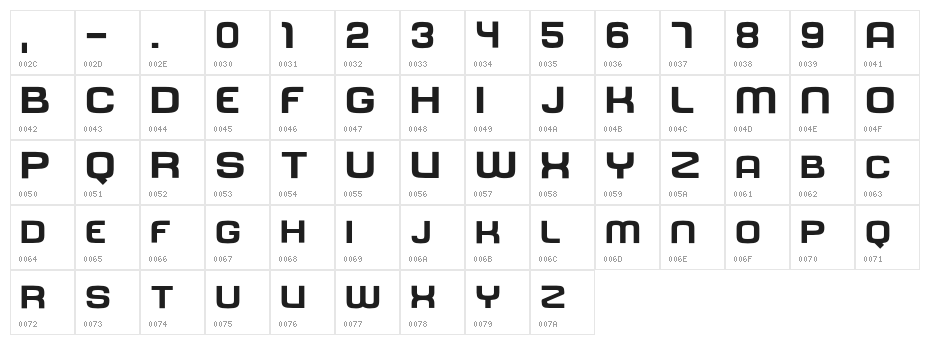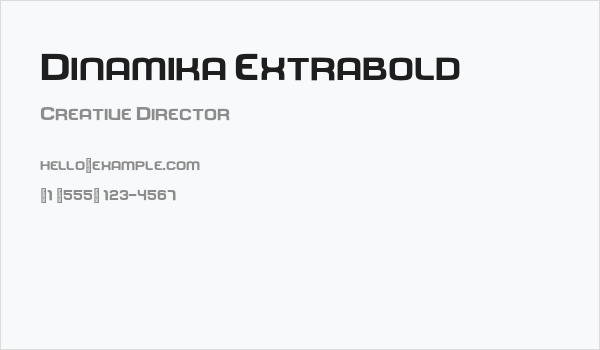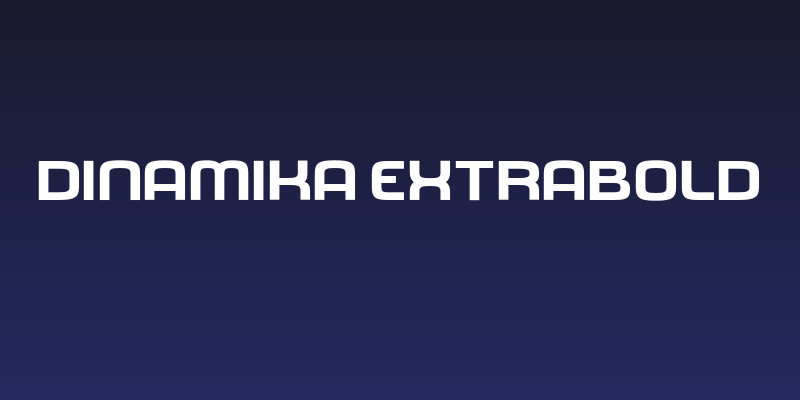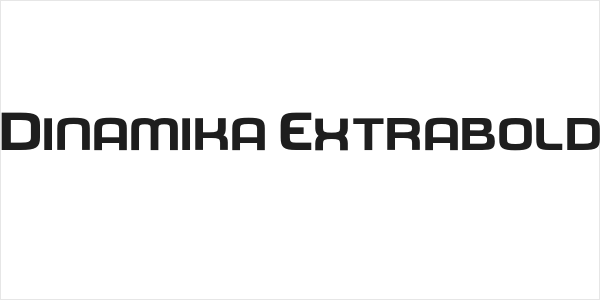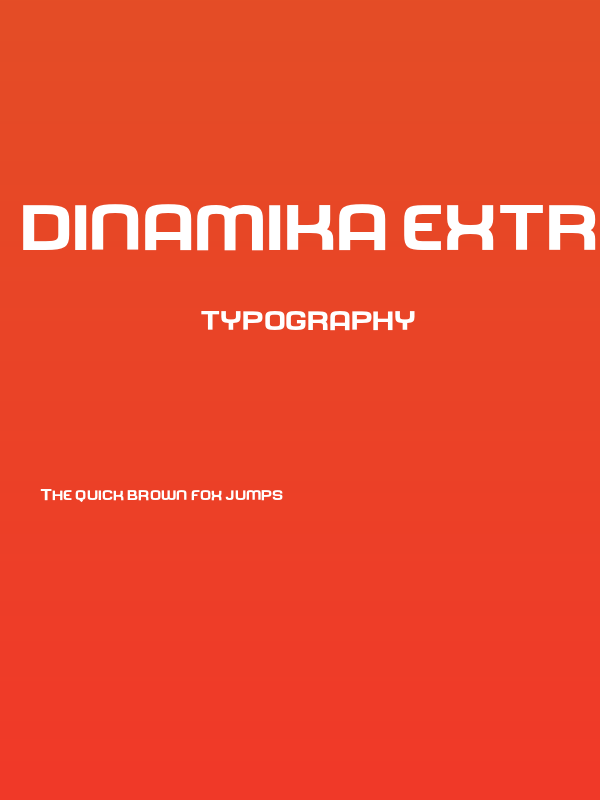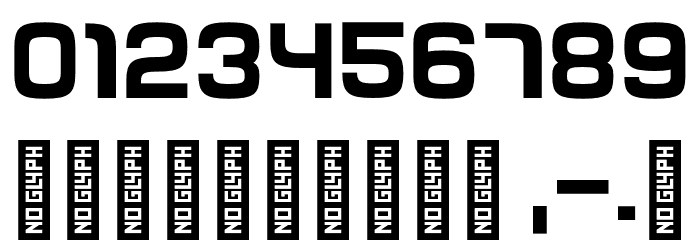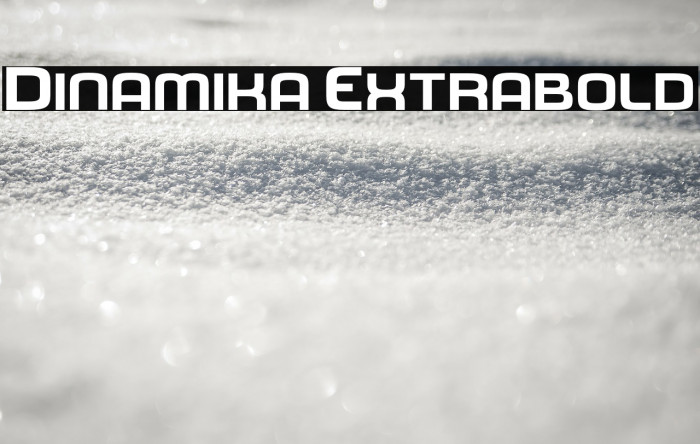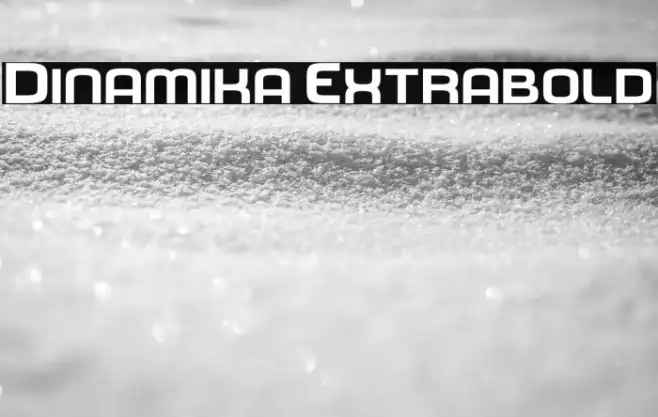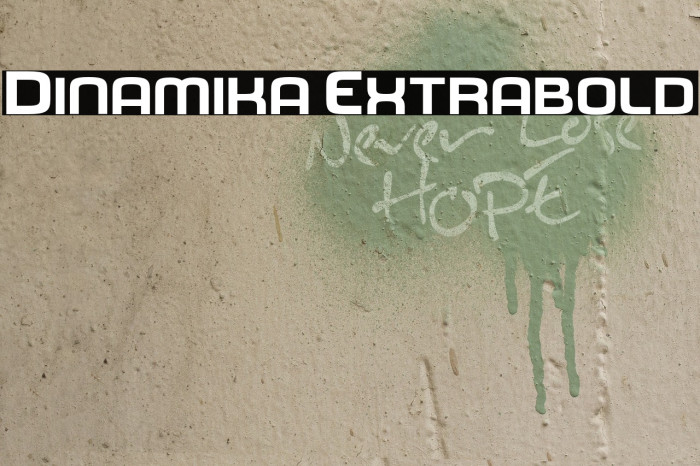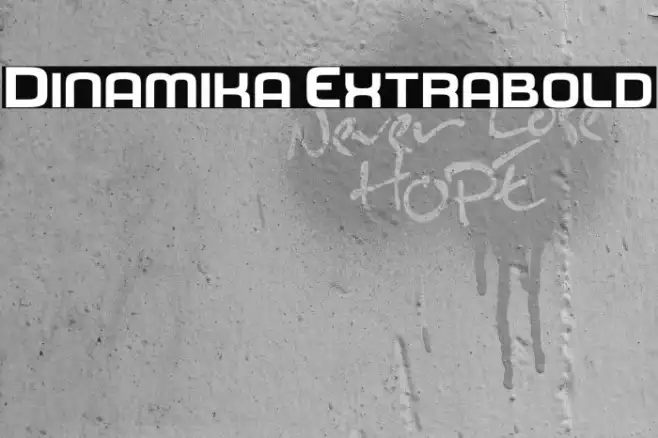
Dinamika Extrabold Font
Dinamika Extrabold Description
This font features a bold and modern design with a geometric structure. The characters are wide and have a consistent stroke thickness, giving them a strong and impactful appearance. The uppercase letters are particularly striking, with a uniform height and width that create a balanced look. The numbers are equally bold, maintaining the same geometric style. The font lacks traditional serifs, emphasizing its contemporary and clean aesthetic. The overall design is highly legible, making it suitable for various applications where clarity and emphasis are needed.
| Proposed Projects | Ideal for branding, headlines, posters, and digital media where a strong visual presence is required. |